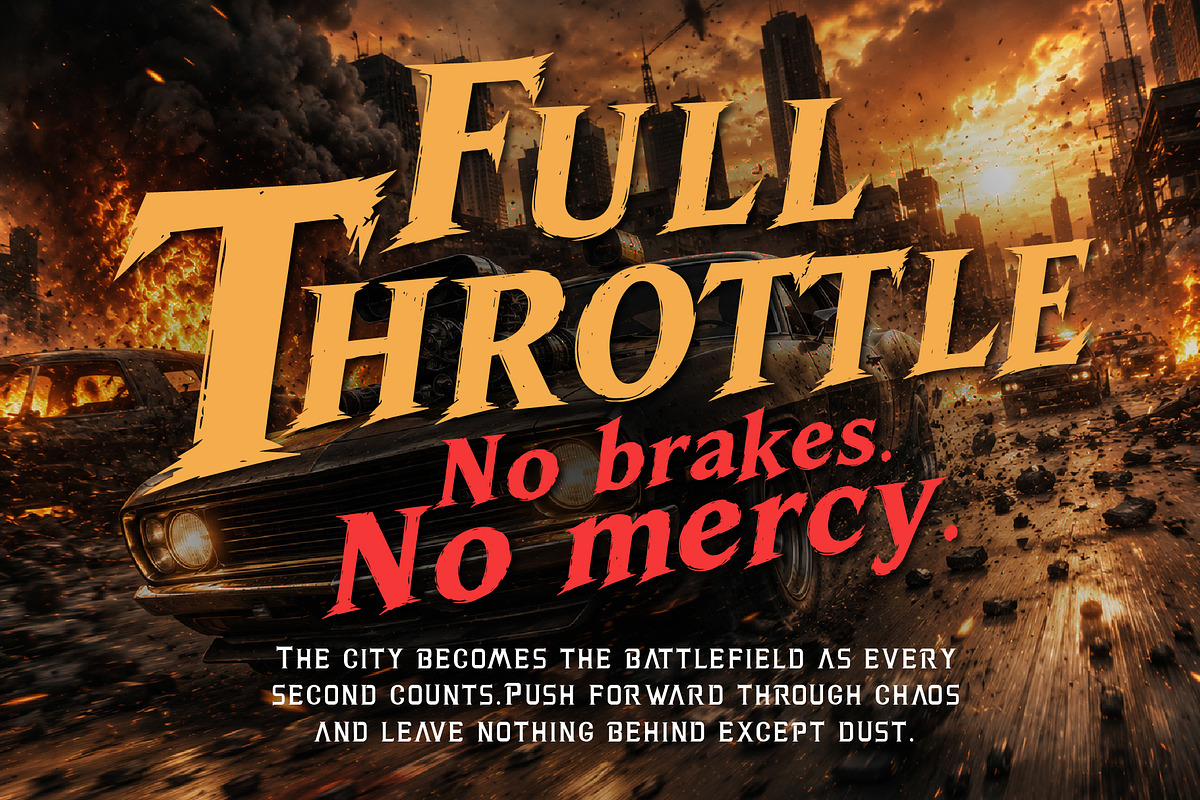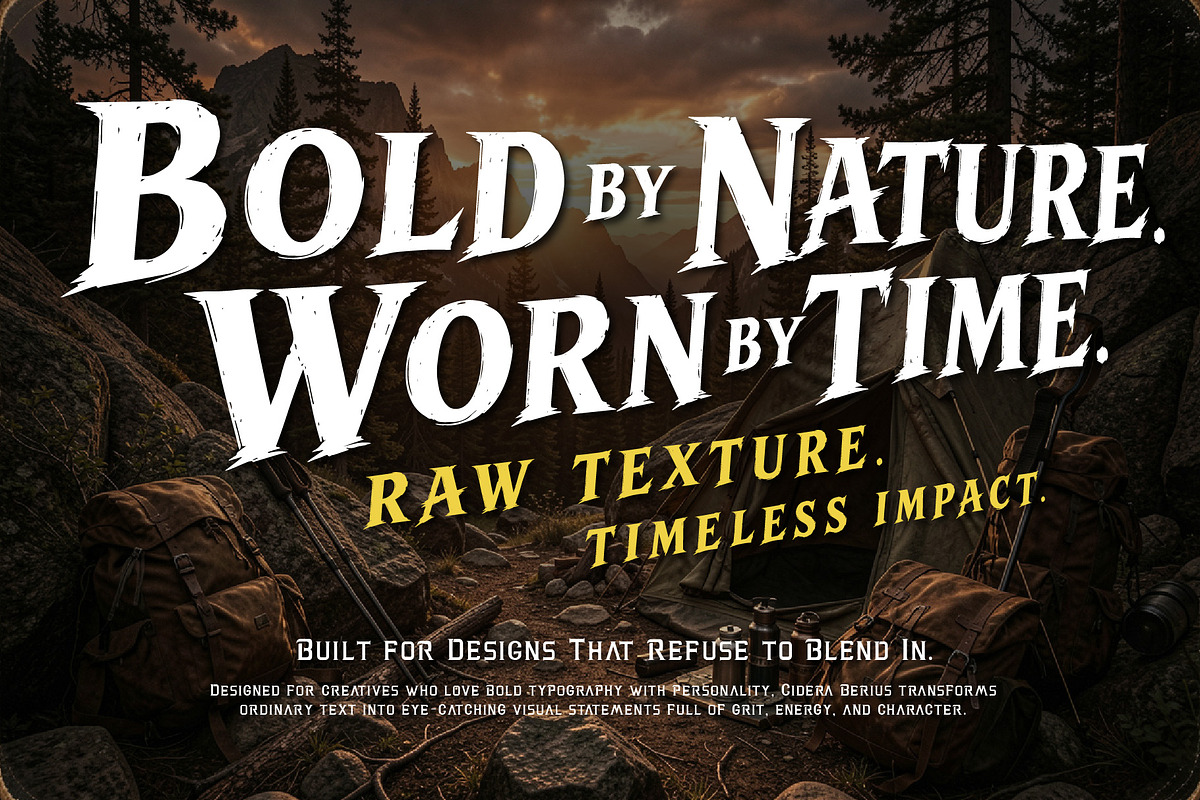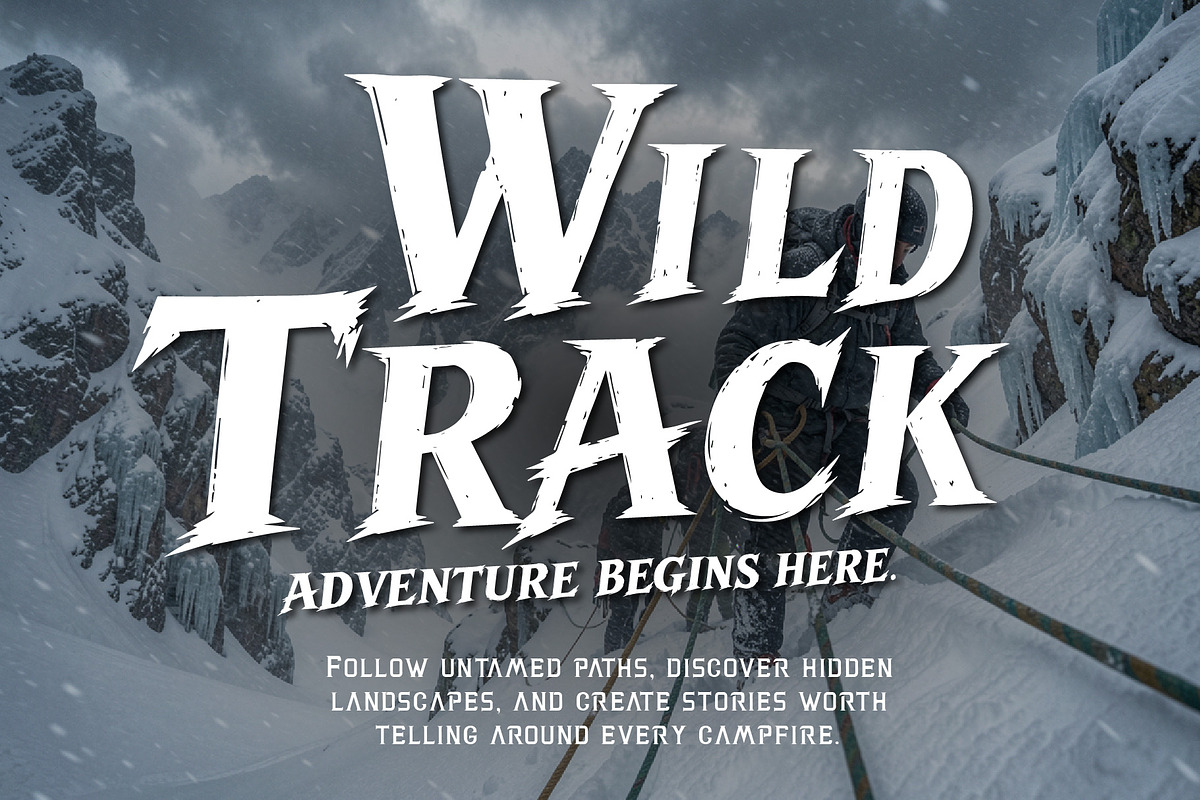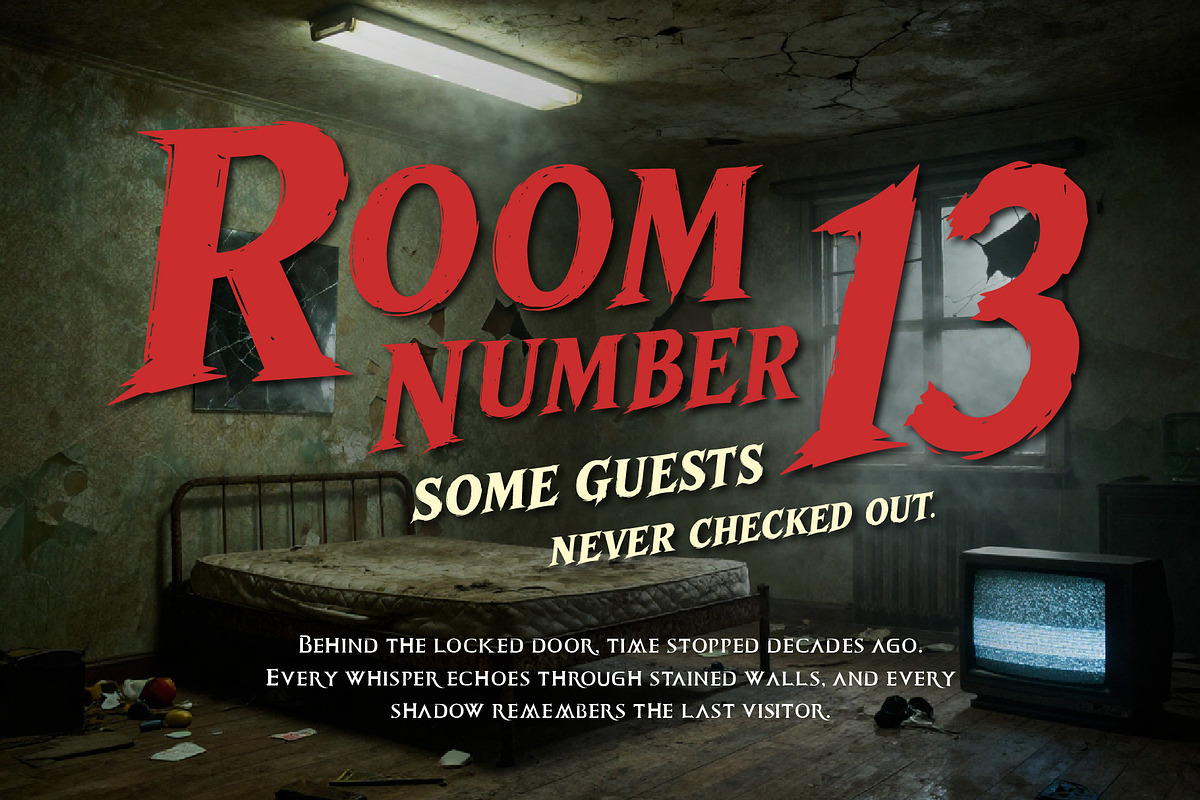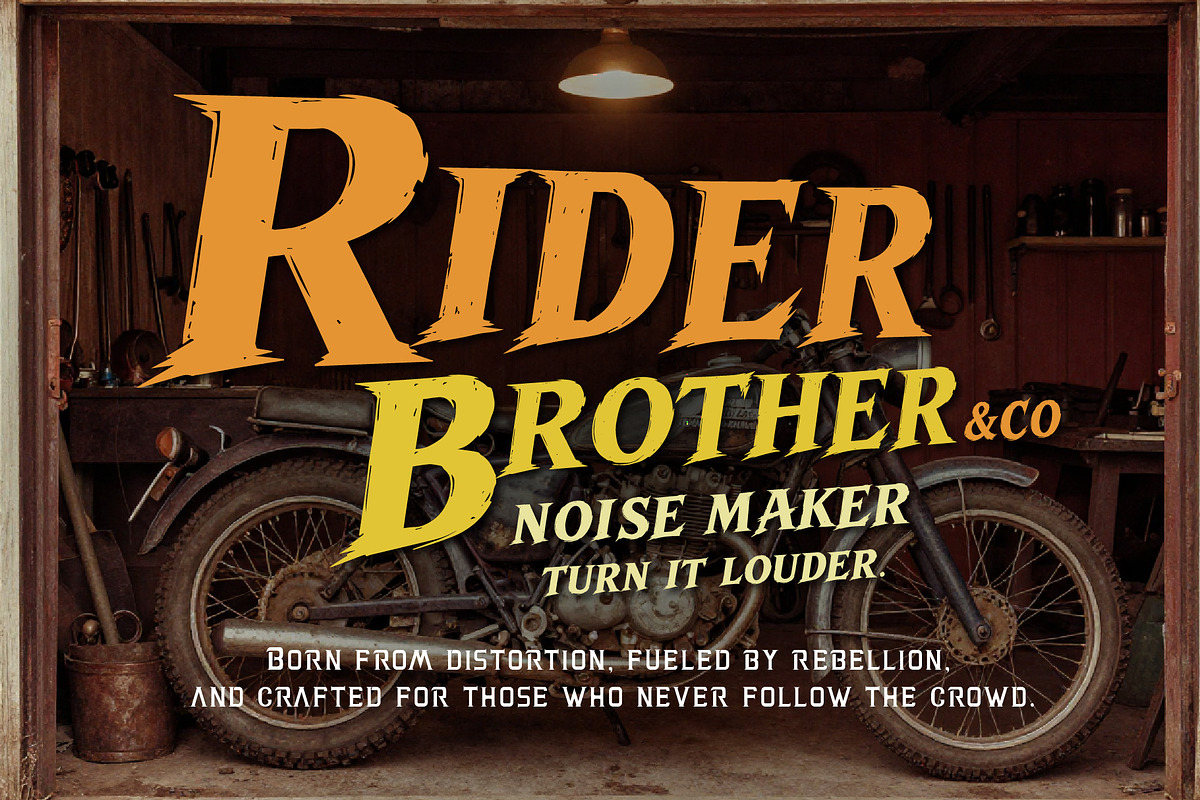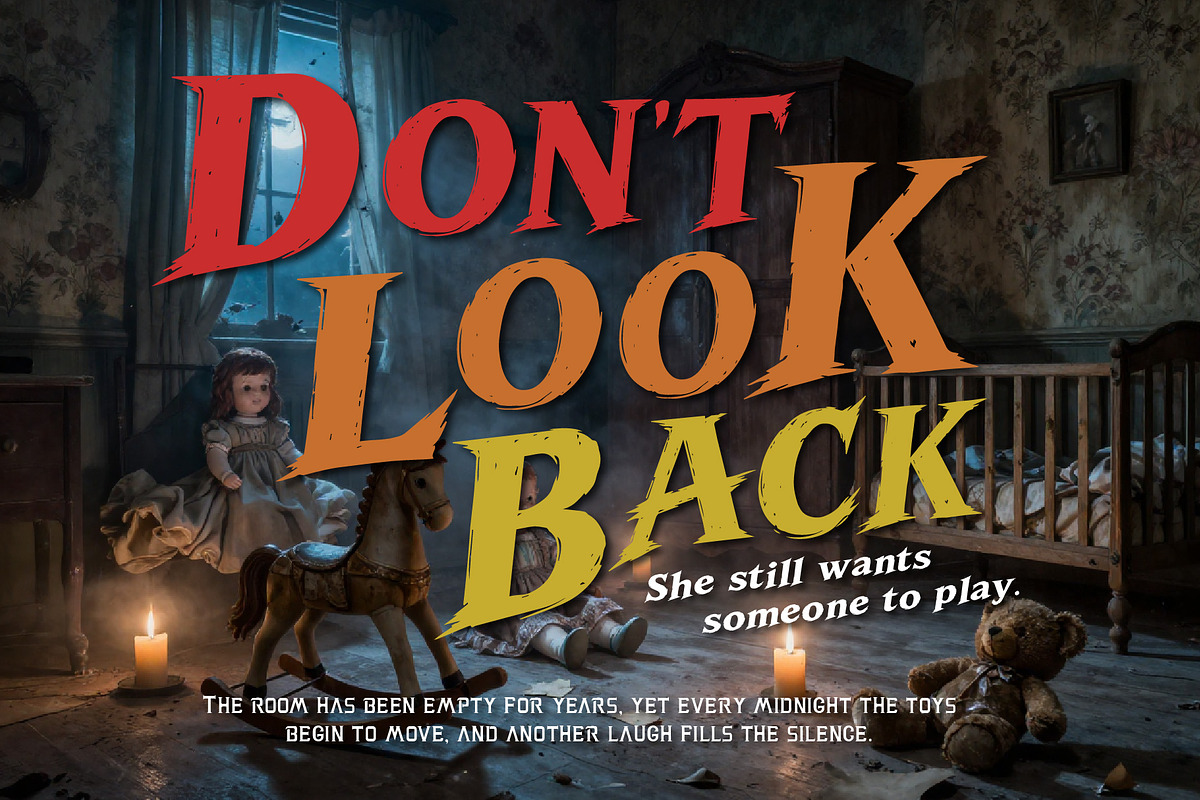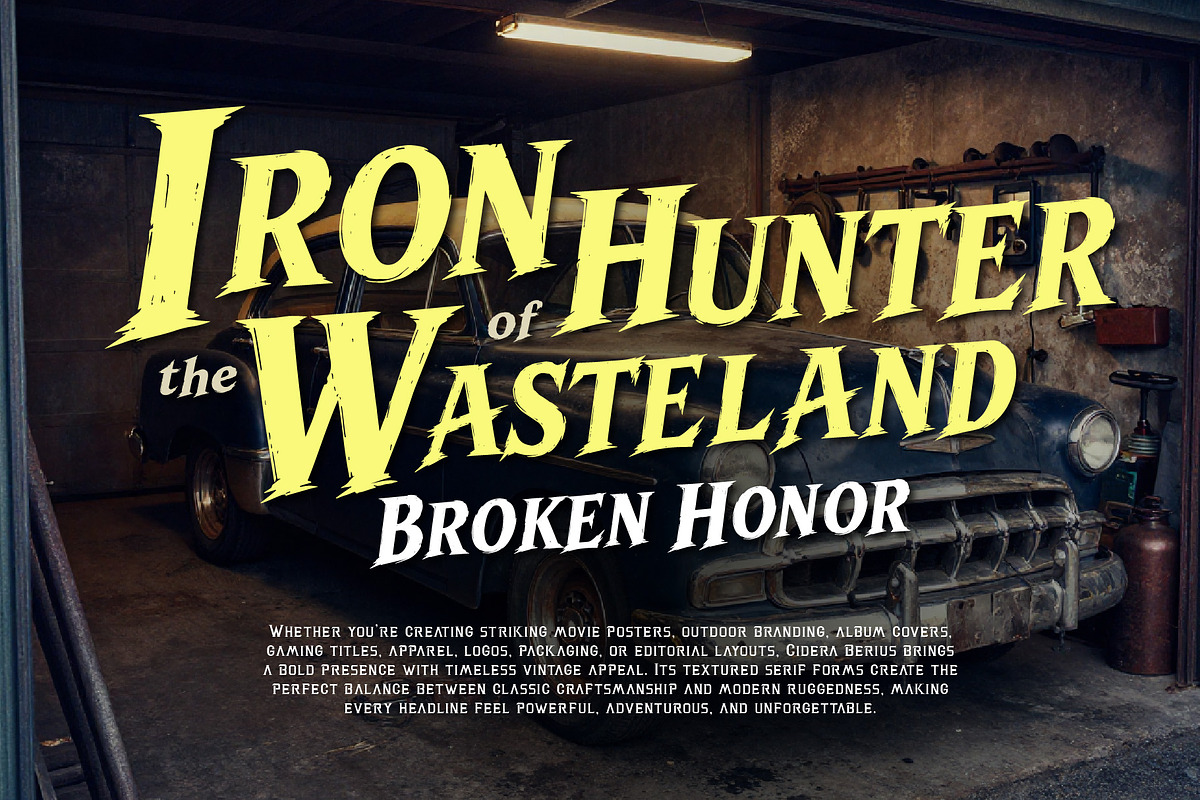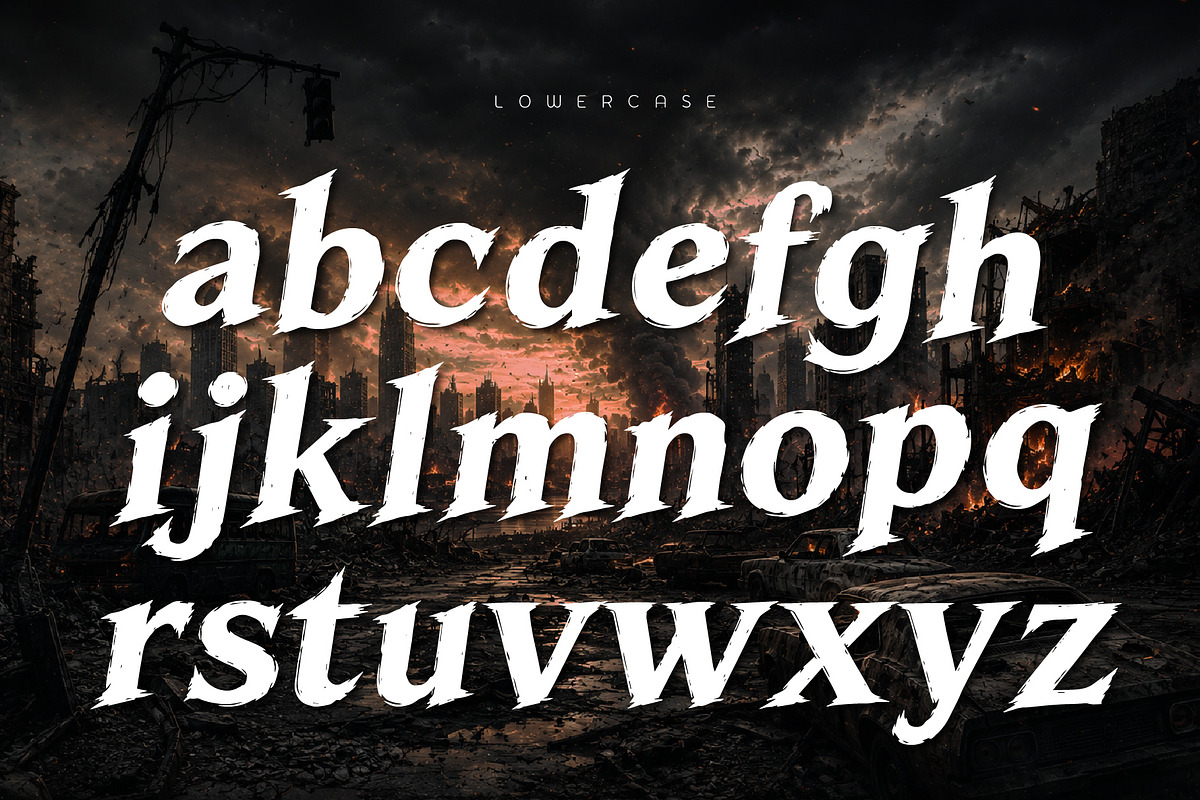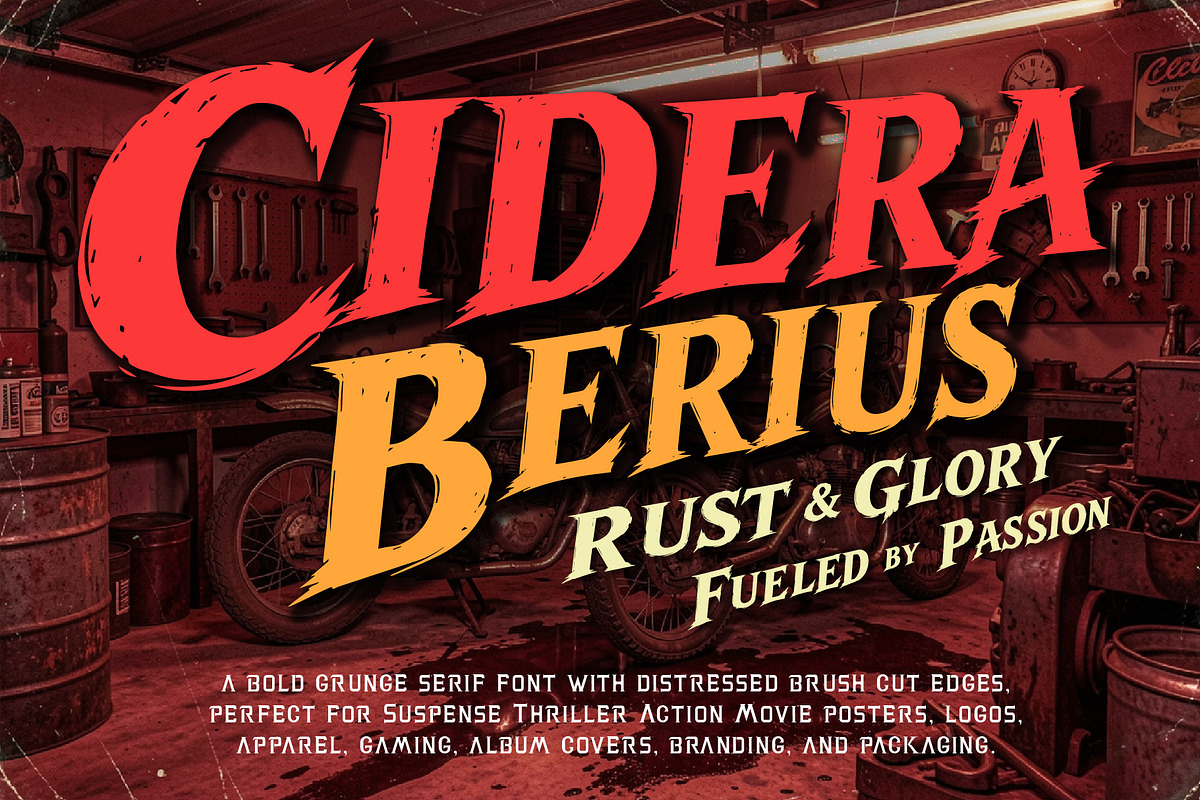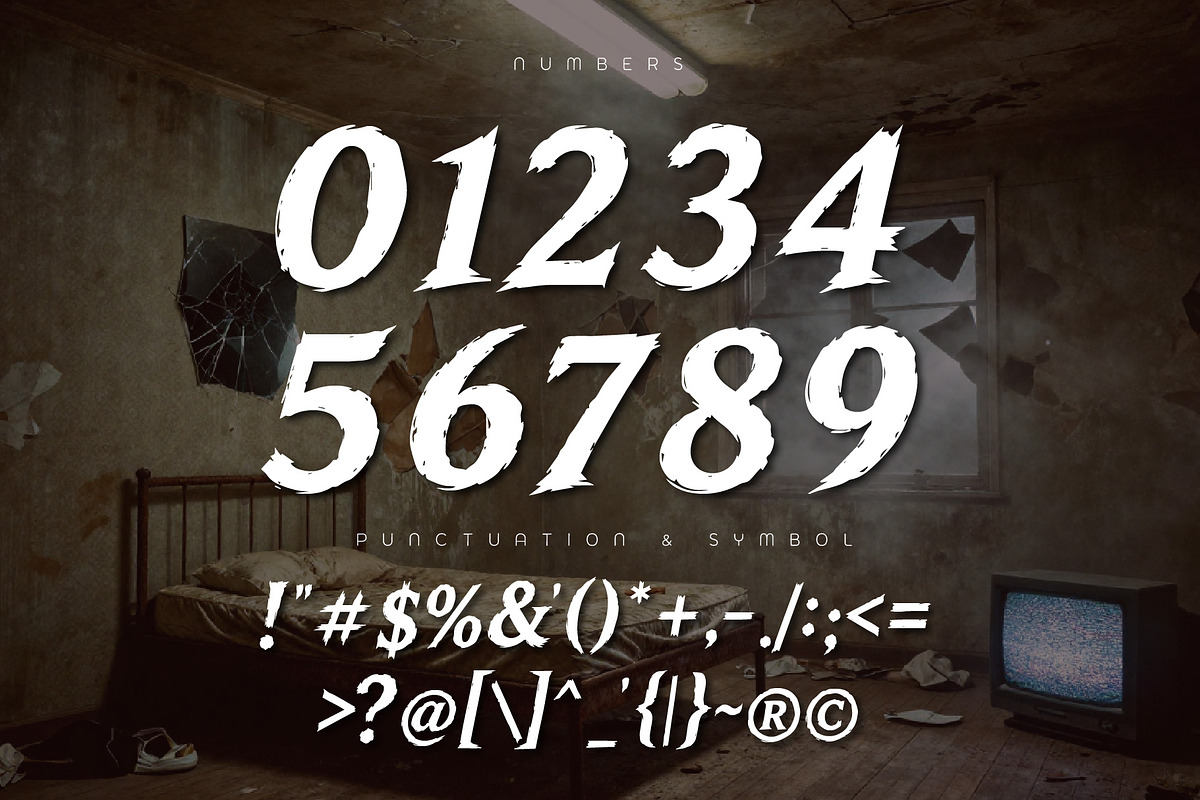
Cidera Berius – Suspense Thriller
Cidera Berius is a bold grunge serif font built for fearless designs that demand attention. Featuring rugged brush cut edges, distressed textures, and a handcrafted vintage aesthetic, it delivers an authentic raw character inspired by old printmaking, adventure culture, and weathered signage.
Crafted with bold proportions and expressive brush cut details, Cidera Berius blends timeless serif elegance with raw, distressed energy. Every character is designed to create powerful headlines that feel rugged, vintage, and adventurous while maintaining excellent readability.
Perfect for movie posters, outdoor branding, album covers, apparel, gaming titles, logos, packaging, book covers, editorial layouts, merchandise, whiskey labels, adventure branding, and bold visual identities, Cidera Berius Whether you're designing for horror, western, thriller, action, vintage, or outdoor-inspired projects, Cidera Berius delivers the fearless personality needed to make your work stand out.